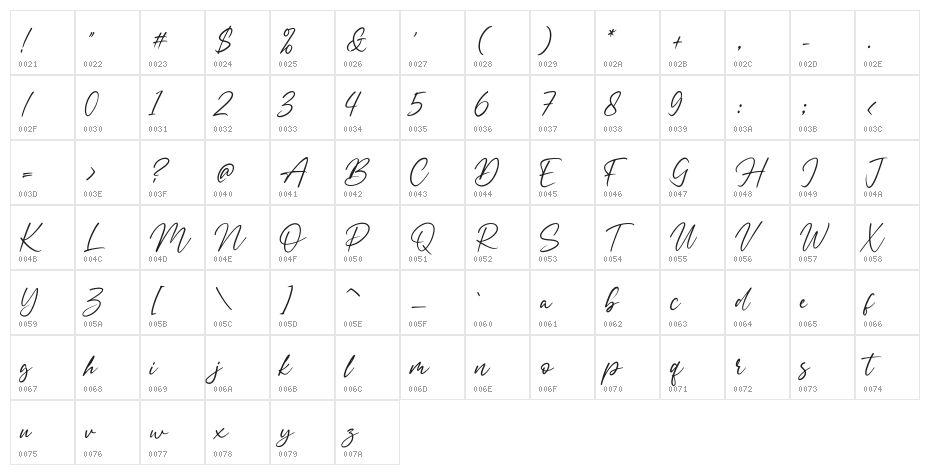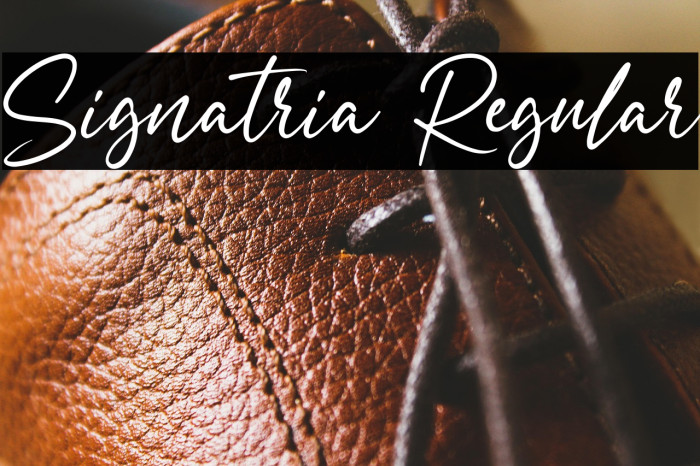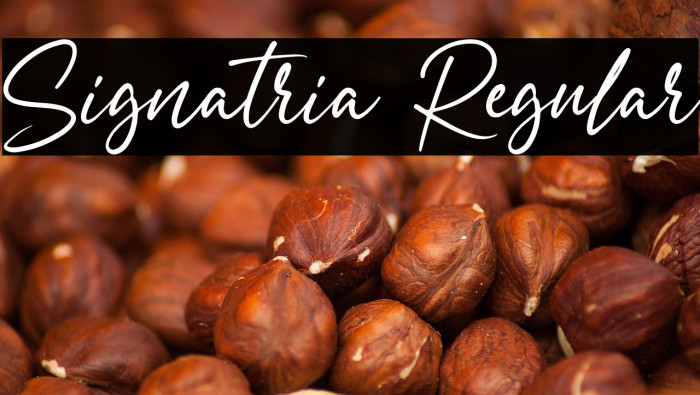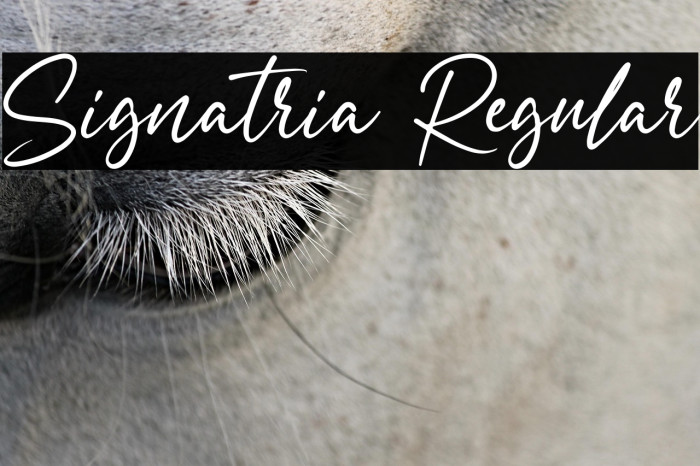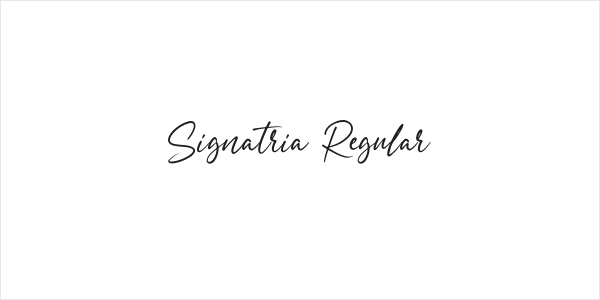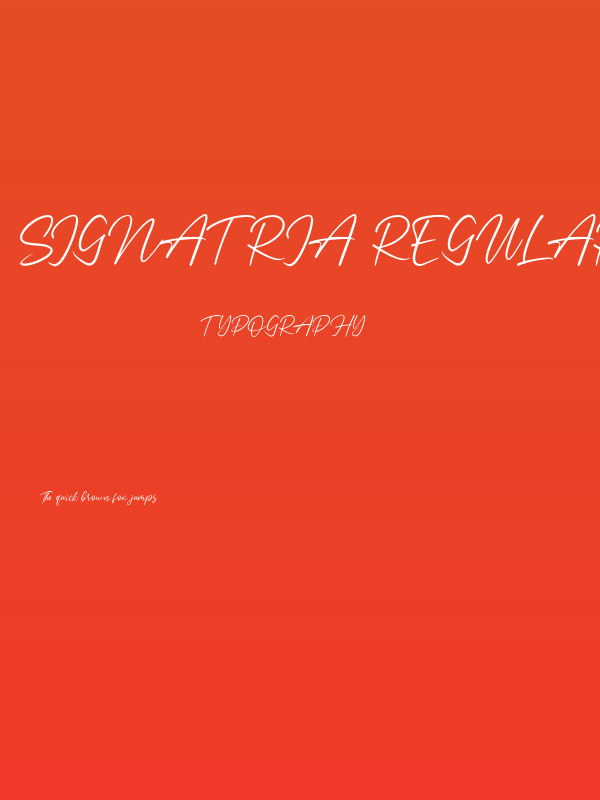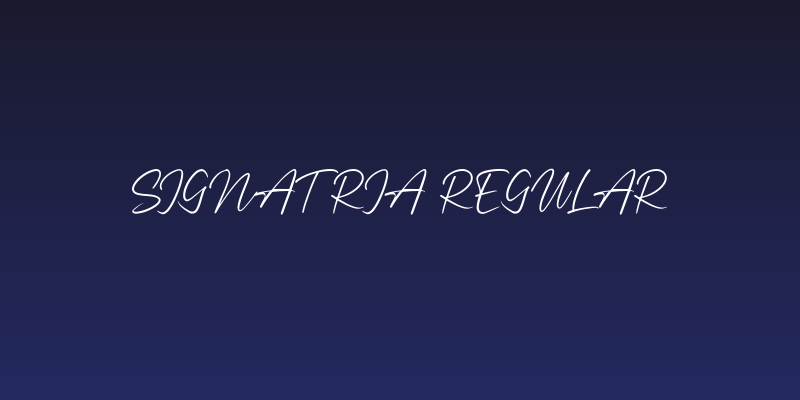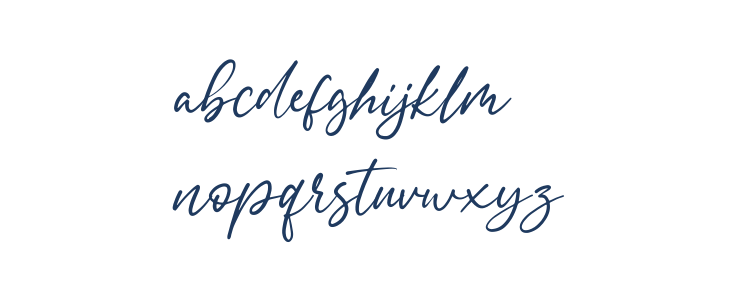
Signatria Regular Font
Signatria Regular Description
This font features a flowing, cursive style that exudes elegance and sophistication. The characters are interconnected, creating a seamless and fluid appearance. The uppercase letters are tall and graceful, while the lowercase letters maintain a consistent rhythm and balance. The numerals are stylish and complement the overall script aesthetic. Special characters are thoughtfully designed to match the cursive flow, enhancing the font's versatility. This font is ideal for projects that require a touch of class and refinement, such as invitations, branding, and editorial design.
| Overall Style | Elegant, Sophisticated |
| Use Case | Logos, Invitations, Editorial Design |
| Proposed Projects | Ideal for wedding invitations, luxury branding, and editorial design. |